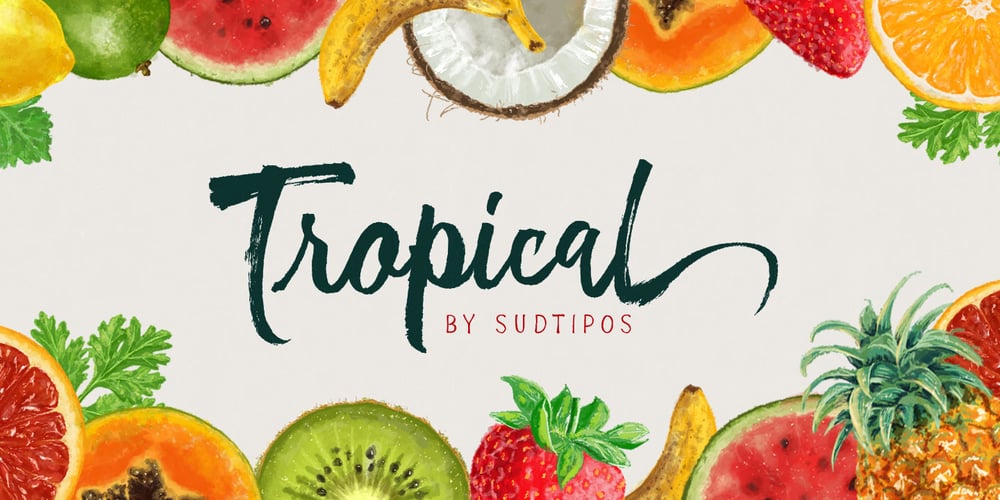
Tropical Font Family was designed by Alejandro Paul, Joluvian and published by Sudtipos. Tropical contains 4 styles and family package options. The single-named, multi-talented designer Joluvian now lives in Madrid. But he grew up in the “Caribe” of Venezuela, where thick jungles meet endless beaches, and fecund trees bear juicy fruit – a tropical paradise where music and dance vibrate in the humid air. The Tropical pack, designed by Joluvian and digitized by Ale Paul, echoes the spirit of his birthplace. Its three faces are casually stylish – a bold, wet-looking display script, an inky, textured brush script, and hand-penned capitals with a felt-tip look. Like a fruit cocktail, each ingredient is tasty on its own, but they combine even more deliciously. Sprinkle the included catchwords, shapes, and bursts in your layout to complete the easygoing, Carribbean vibe. Each face includes alternates and support for multiple Latin languages.